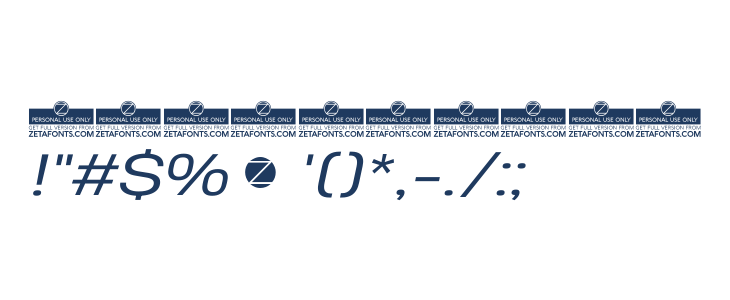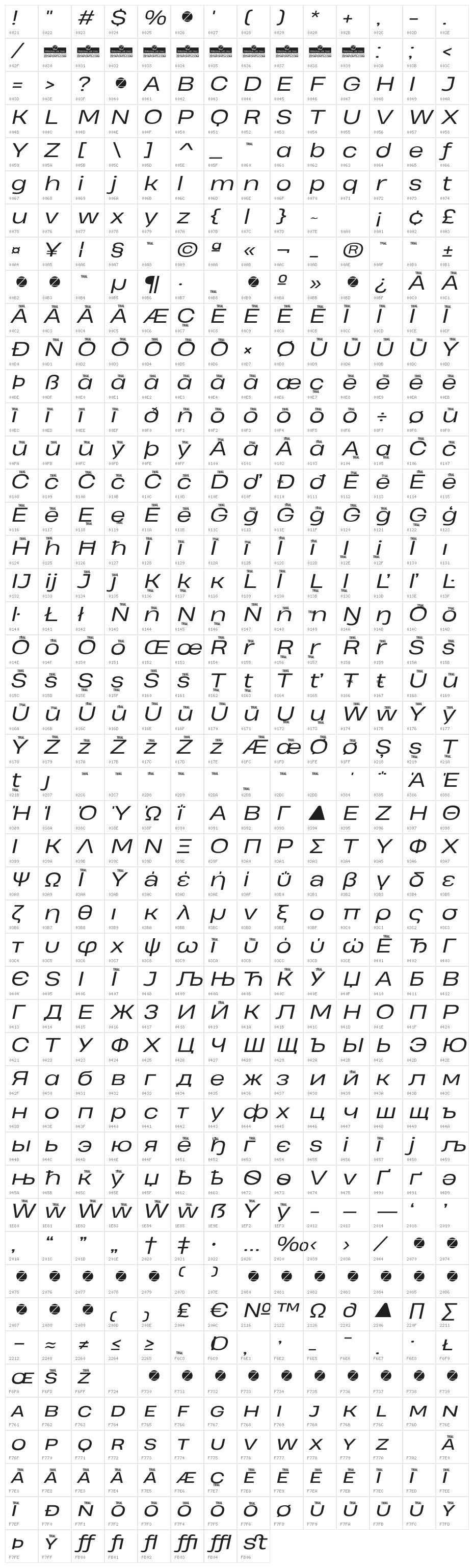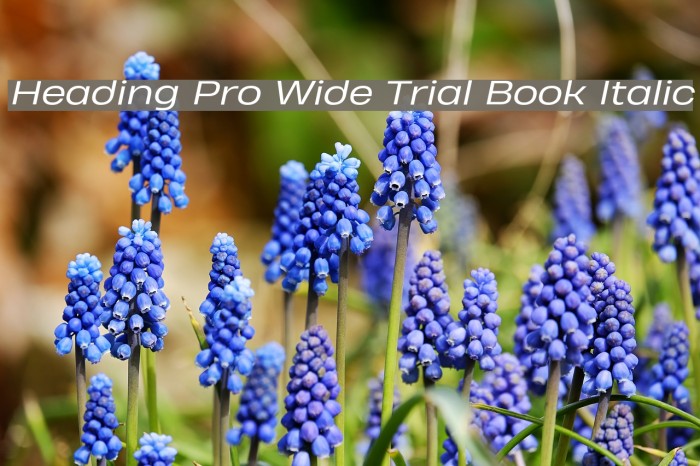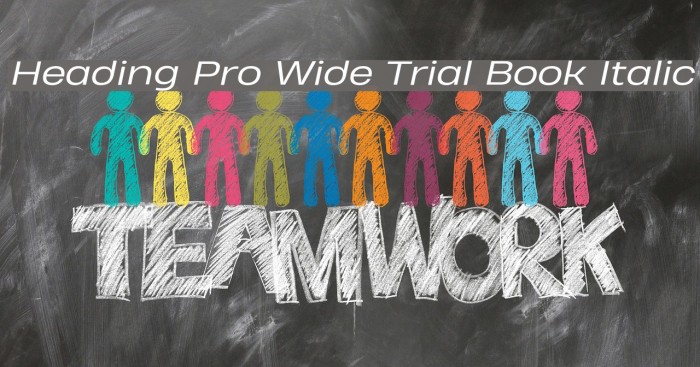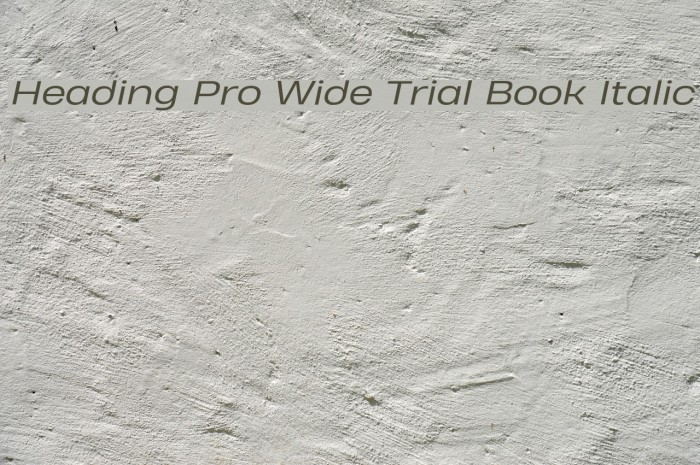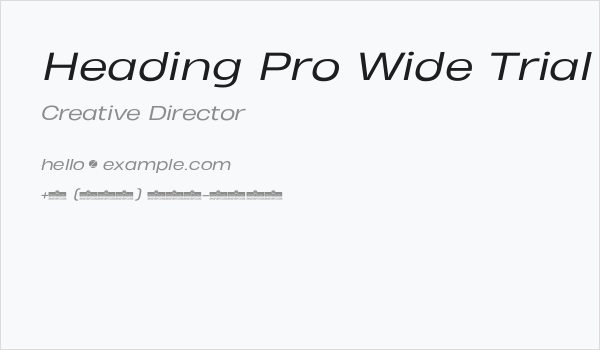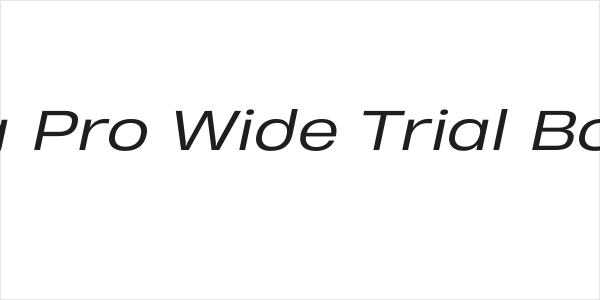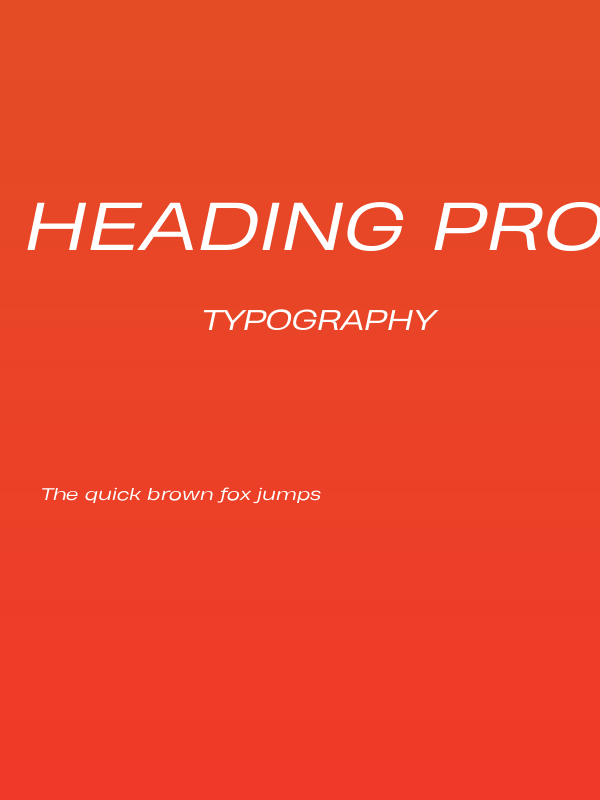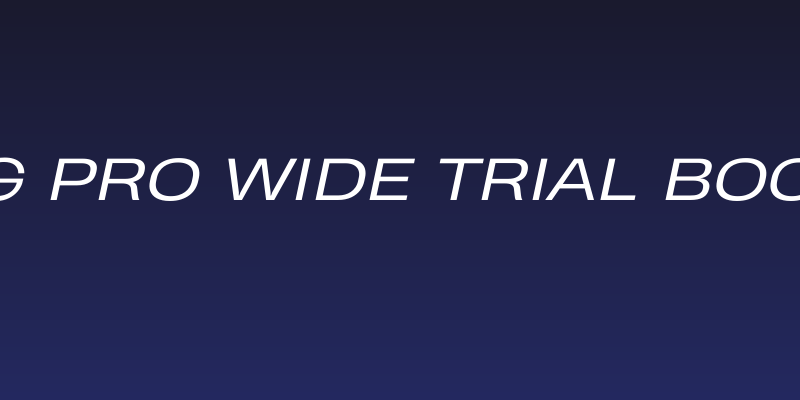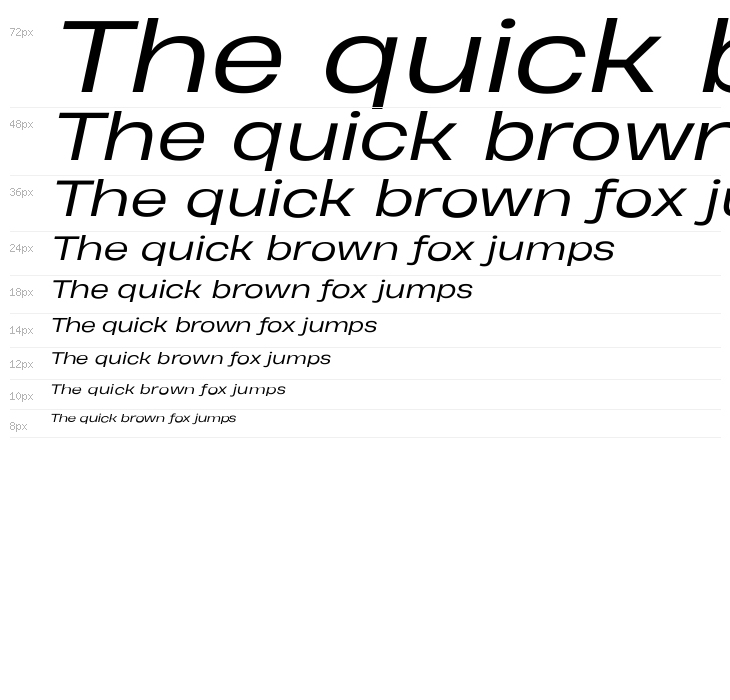
Heading Pro Wide Trial Book Italic Font
Heading Pro Wide Trial Book Italic Description
This font features a sleek, modern design with a wide stance and italicized style, giving it a dynamic and forward-leaning appearance. The characters are crafted with precision, showcasing clean lines and a uniform stroke width that maintains readability while adding a touch of elegance. The uppercase letters are bold and commanding, while the lowercase letters maintain a consistent flow, enhancing the overall aesthetic. The numerals and special characters are designed to complement the alphabet, ensuring versatility across various applications. This font is ideal for projects that require a contemporary and professional look.
| Use Case | Headlines, Logos, Digital Media |
| Proposed Projects | Ideal for branding, advertising, digital media, and editorial design. |